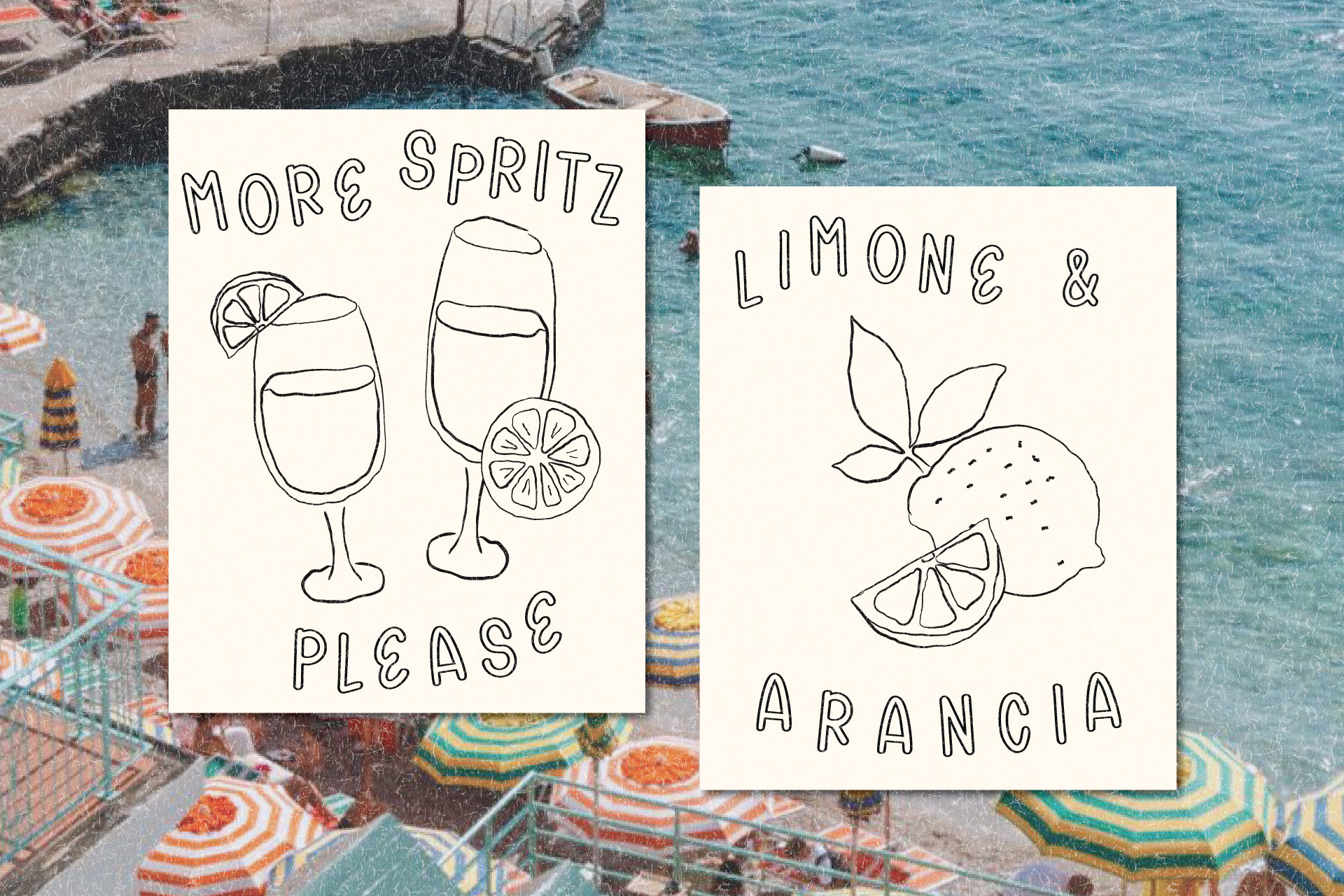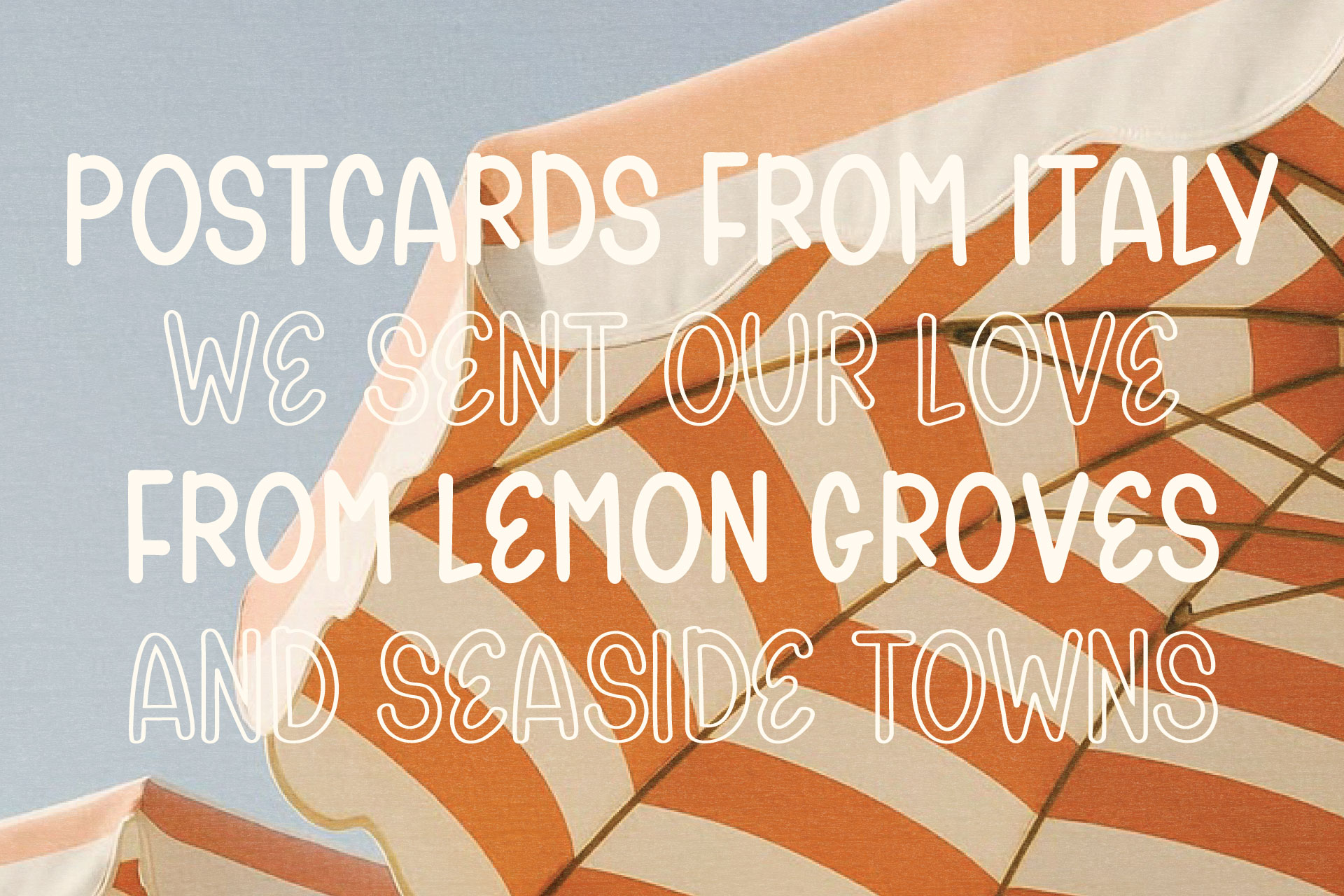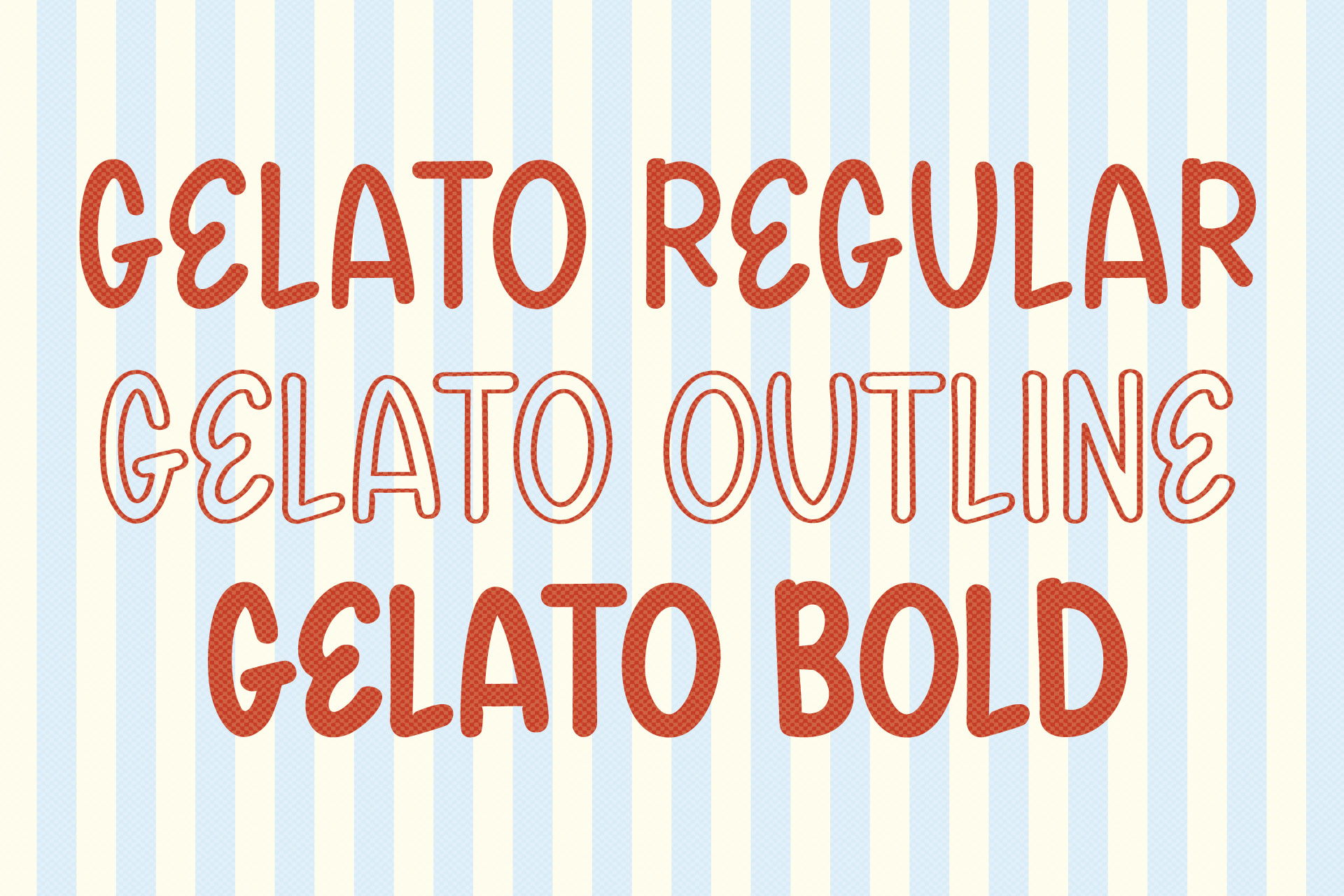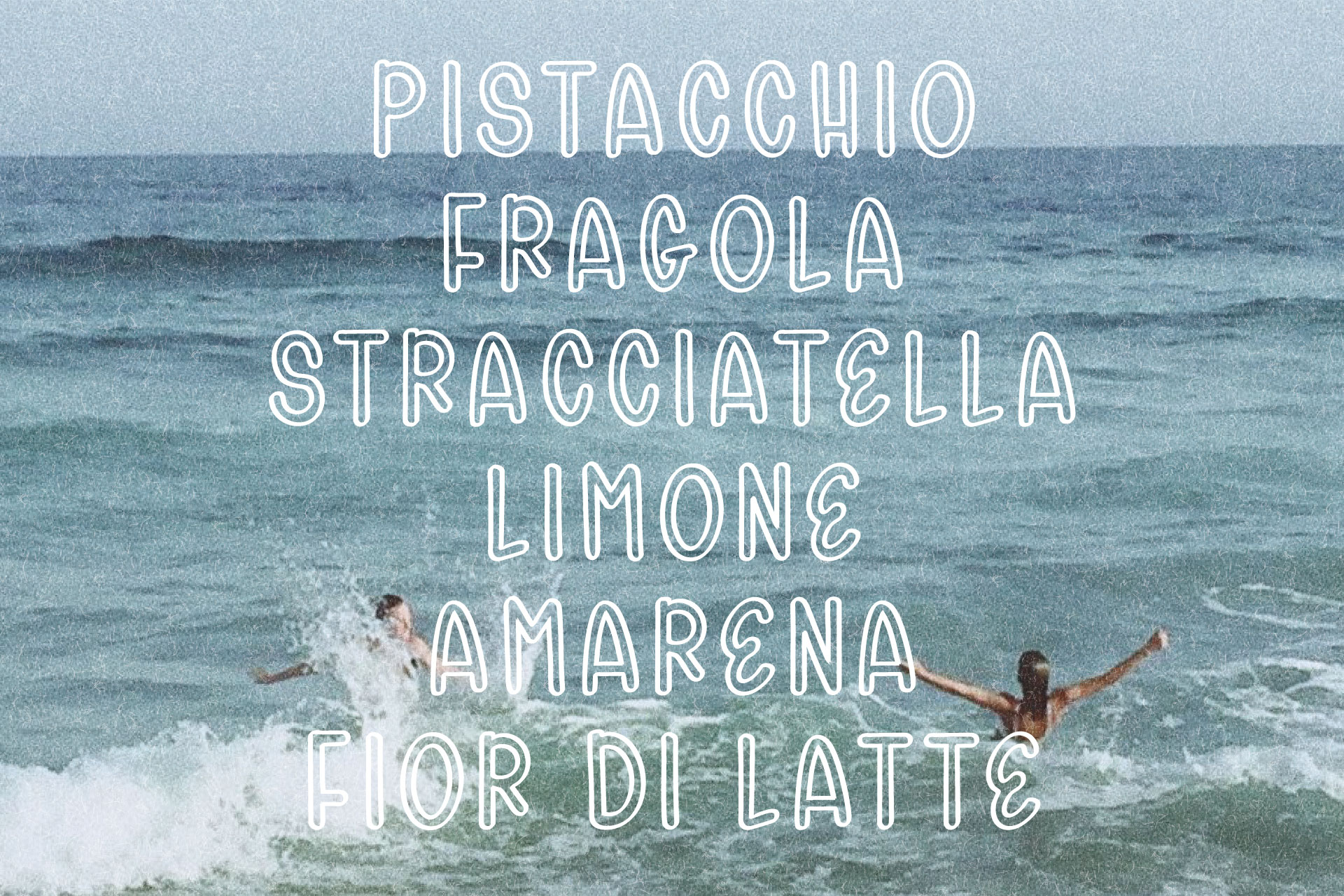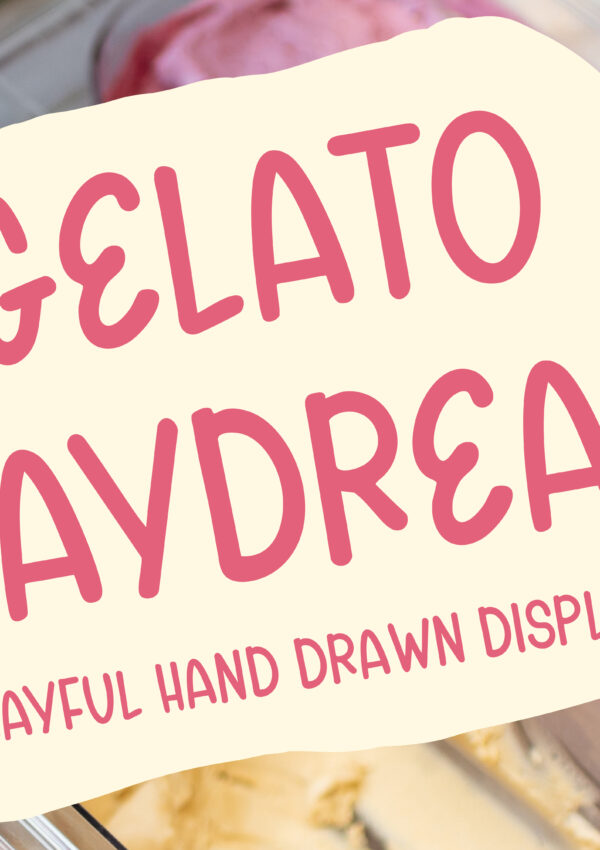
I have such a soft spot for fonts that instantly create a whole little world.
Gelato Daydreams is one of those fonts for me. It feels sweet and sunny and a little nostalgic, like something you would see on a tiny gelato shop sign, a summer market label, cute food packaging, or a brand board that needed one really charming type moment.
It is a hand-drawn display font, so it is meant to have personality. It is not trying to be the basic font you use for every single line of text. It is the font you use when you want the design to feel more custom, more playful, and a little more memorable.
I made Gelato Daydreams for the kind of creative projects that need a font with charm, but still need to feel polished. Think branding, packaging, logos, Pinterest graphics, menus, labels, invitations, and all the little design details that feel better when they are not perfectly stiff.
What is Gelato Daydreams?
Gelato Daydreams is a handmade display font designed by Daily Creative Co. It has a hand-drawn look with soft, playful letterforms that feel warm and expressive without being too messy.
Display fonts are usually used for the parts of a design that need to stand out. So instead of using this for a whole paragraph, I would use it for things like a logo, headline, product name, label, menu title, sticker, packaging design, or a bold Pinterest graphic.
Basically, this is the font you use when you want the words to become part of the design.
It is especially good for short phrases, brand names, product names, cute packaging moments, seasonal graphics, and designs that need a little extra personality. If a plain font feels too expected, Gelato Daydreams gives the design more of a handmade, custom-feeling look.
The vibe behind the font
The whole feeling behind Gelato Daydreams is sweet, nostalgic, and a little Italian summer inspired.
I kept thinking about gelato shops, handwritten signs, warm afternoons, vintage food labels, little cafes, summer colors, and the kind of branding that feels collected instead of overly perfect.
I did not want it to feel too childish or like a font you could only use for one very specific thing. I wanted it to have that playful handmade charm, but still be useful for real projects. Something you could use on cute packaging, but also on a brand board. Something that could feel sweet for a dessert brand, but also charming for stationery, wedding details, or a creative business.
That is always the sweet spot for me with fonts. I want them to have a clear personality, but still give you room to use them in your own way.
What makes it feel handmade?
The best part of a hand-drawn font is that it does not feel overly perfect.
Gelato Daydreams has little imperfections and movement in the letters, which is what gives it that warm, custom feeling. It feels more like something drawn by a person than something pulled from a super clean corporate font list.
And honestly, that is the whole point.
So many designs use the same fonts over and over again, especially in Canva templates, Pinterest graphics, and small business branding. I still love a good clean font, obviously, but sometimes a design needs something that feels a little less expected.
A hand-drawn display font can make a brand or graphic feel more original right away. It adds character before you even bring in colors, illustrations, textures, or mockups.
Who is Gelato Daydreams best for?
Gelato Daydreams is best for designers, small business owners, creative entrepreneurs, makers, and brand owners who want a font that feels handmade, playful, and still polished.
It would be such a good fit for food brands, dessert shops, bakeries, cafes, stationery brands, wedding creatives, product-based businesses, and anyone creating designs that need a warm, charming, custom-feeling type style.
I also think it works really well for people who create graphics often and want something that makes their work feel a little more recognizable. If you are making Pinterest pins, Instagram graphics, brand boards, packaging mockups, product labels, or digital downloads, a font like this can make a simple layout feel way more intentional.
It is for designs that need charm without looking messy. Cute, but not chaotic. Playful, but still usable. Handmade, but not hard to read.
Best ways to use Gelato Daydreams
Gelato Daydreams works best when it gets to be the fun part of the design. I would use it for:
- Food branding
- Bakery logos
- Cafe menus
- Gelato shop branding
- Ice cream packaging
- Dessert labels
- Farmers market signs
- Summer graphics
- Pinterest pins
- Instagram posts
- Product packaging
- Brand boards
- Wedding menus
- Dinner party invitations
- Recipe cards
- Stickers and paper goods
- Creative business branding
It can go a few different directions depending on how you style it.
Use it for branding, packaging, logos, labels, menus, Pinterest graphics, social posts, invitations, paper goods, and all the little design moments that need a font with more personality.